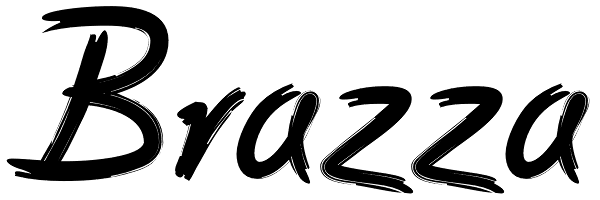
Brazza
Brazza is a a font that fuses the look of handwriting, brush and comic script. It is loose, very versatile and informal, yet it is very readable. Suggestions for use: - music video marketing - greeting cards - valentines day media - comic books...